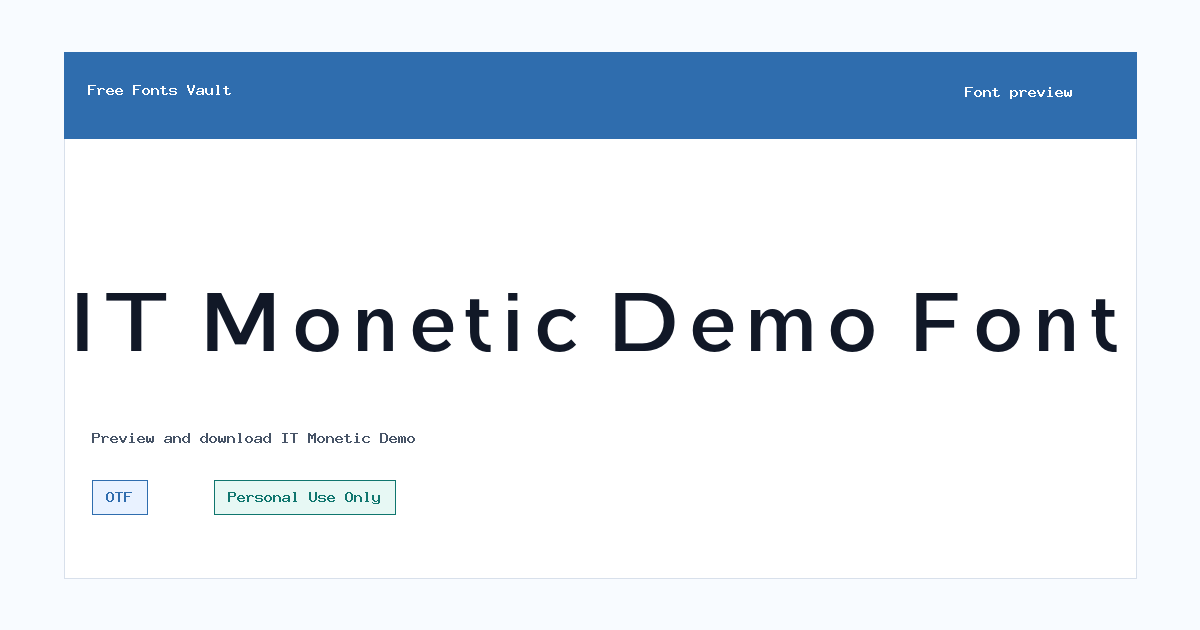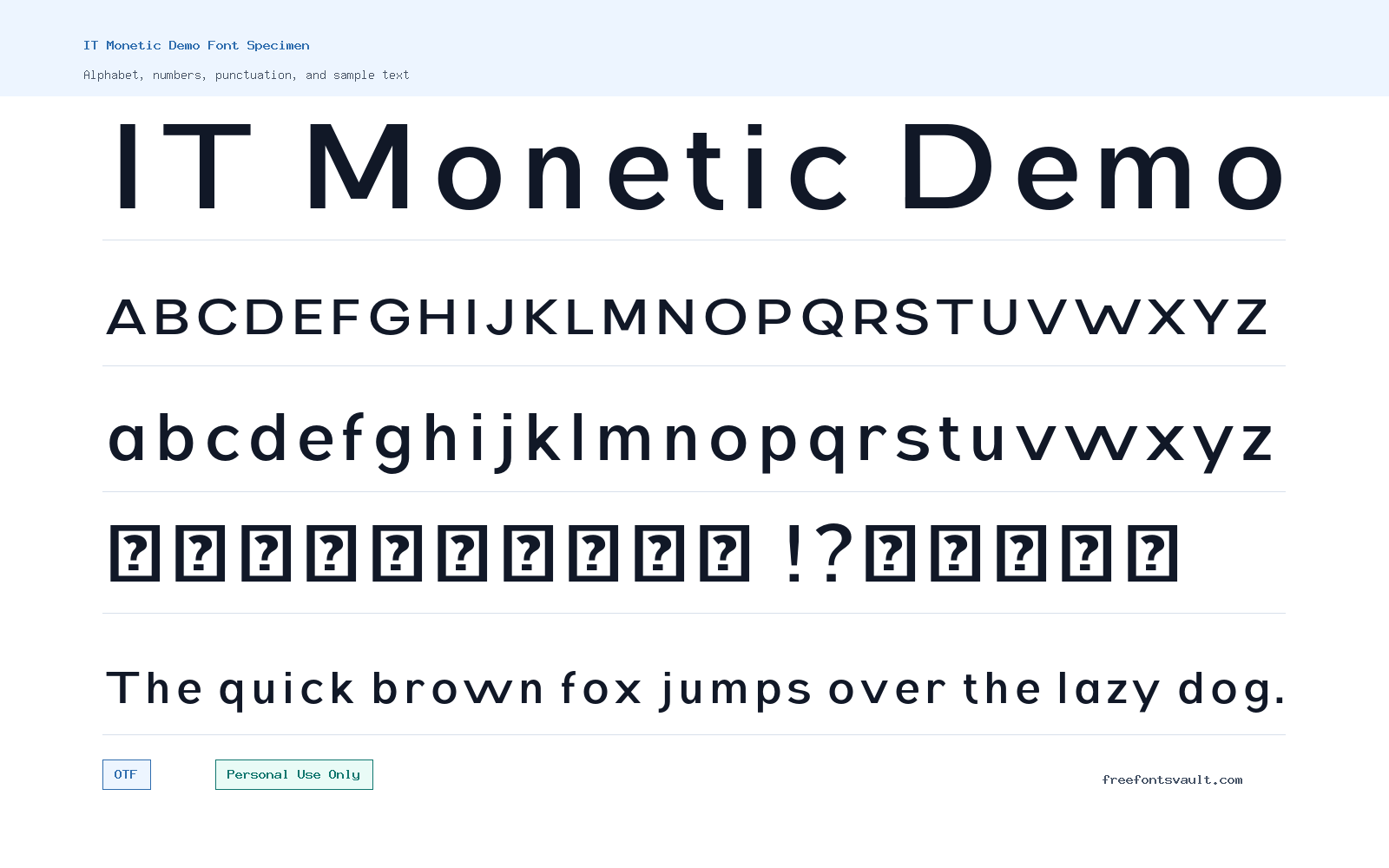
IT Monetic Demo
IT Monetic Demo is a sans serif font family from Indotype Foundry with Regular and Bold OTF styles. It is best treated as a personal-use demo font for previewing layouts, testing headings, and exploring whether the full family fits your design direction.
About IT Monetic Demo
IT Monetic Demo has a clean sans serif setup that makes it easy to test in practical design work. With Regular and Bold styles, it gives you a simple contrast range for headline and supporting text experiments. The family name suggests a demo release, so the safest way to approach it is as a trial version for personal projects, mockups, and early visual exploration rather than a final commercial brand asset.
• Sans serif design suited to clean titles, display text, layout tests, and personal design mockups.
• Normal style with 400 and 700 weight options, useful for simple heading and subheading hierarchy.
• Personal-use posters, social graphics, quote cards, and presentation titles.
• Logo concept sketches and brand direction tests before commercial licensing.
• Website mockups, landing page headings, navigation tests, and UI style exploration.
• Typography pairing experiments with serif, script, or neutral sans serif companion fonts.
• Short display text where the Bold style can create emphasis without needing extra effects.
What is IT Monetic Demo best used for?
It is useful for personal-use design testing, headings, posters, mockups, social graphics, and early branding concepts where a clean sans serif style is needed.
Who designed IT Monetic Demo?
The font is credited to Indotype, with Indotype Foundry listed as the foundry.